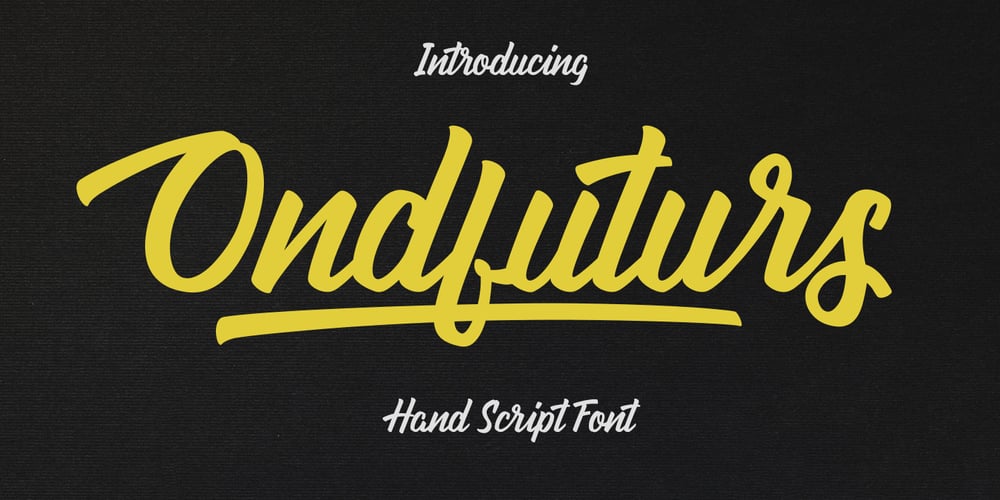
Ondfuturs
Ondfuturs font
Ondfuturs Font Family was designed by Lukmanul Khikmatullah and published by Maculinc. Ondfuturs contains 2 styles and family package options. Introducing Ondfuturs, the script font I designed which is so neat, with the theme of a nuanced heart that was upset about the feeling from losing a memory. This created something new to keep moving forward with confidence. This font is inspired by a tale from antiquity to the future with many points of view. Ondfuturs Script is a typeface thick, easy to read, and so comfortable to wear. You can use it as a logo, badge, insignia, packaging, headline, poster, t-shirt/apparel, greeting card, business card, and wedding invitation and more. The flowing characters are ideal to make an attractive messages to your taste. With this font you can make various sentences that are quite unique and simple, mix and match with a bunch of alternative characters to fit your project. It will be more interesting if you add swash characters. These alternative characters in this font were divided into several OpenType features such as Stylistic Alternates, Ligature and Ligature Alternates. Mail support : maculinc@gmail.com Thank you! Maculinc